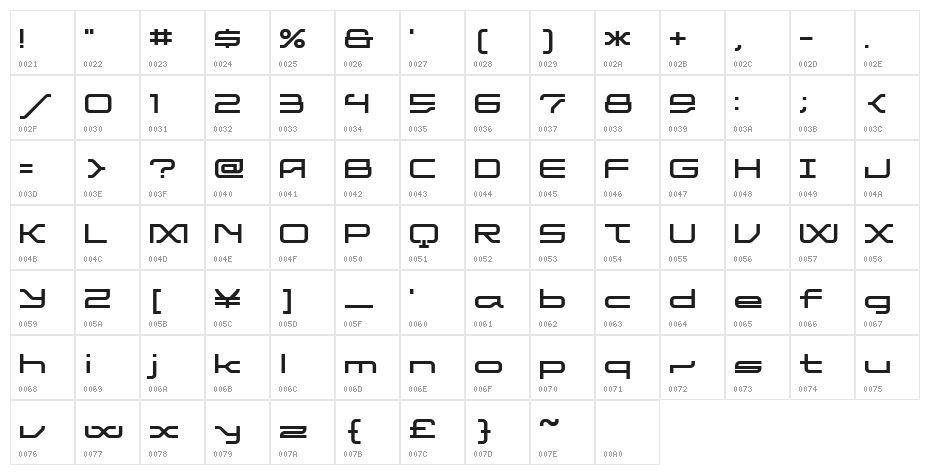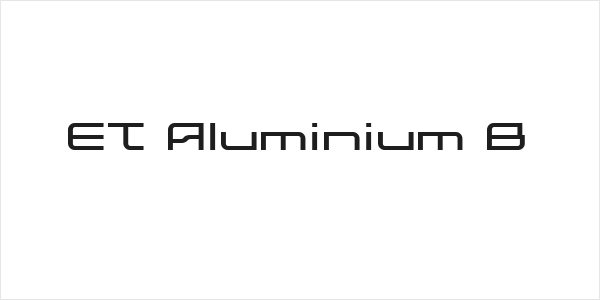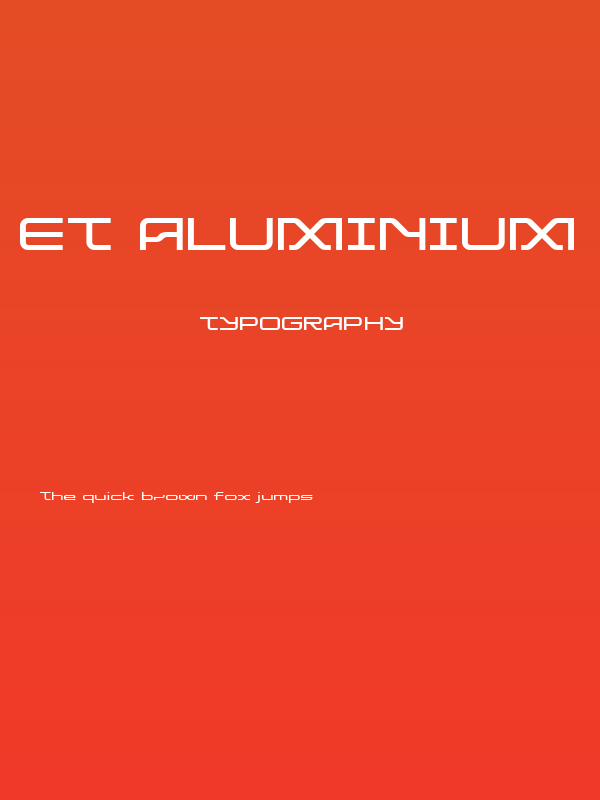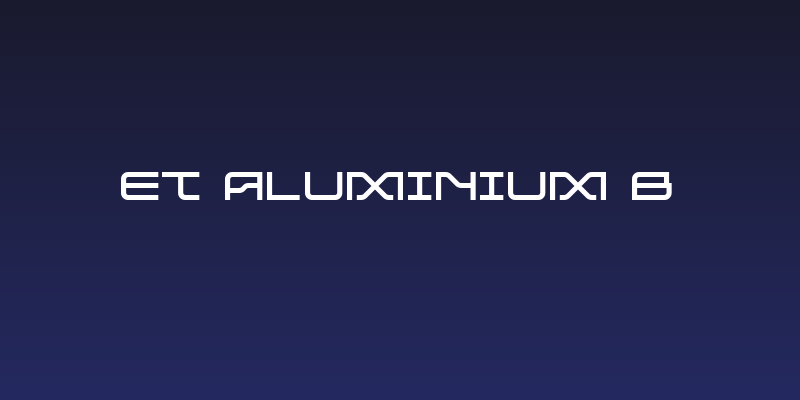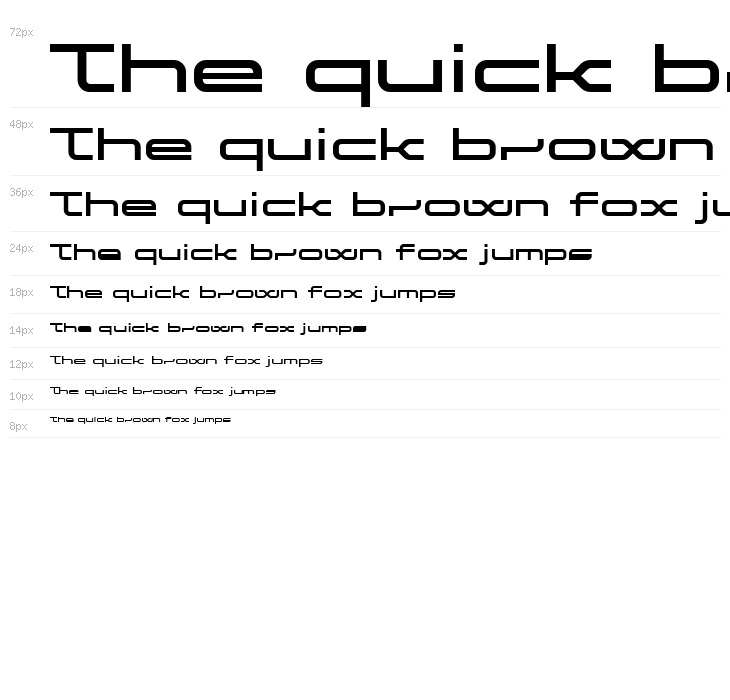
ET Aluminium B Font
ET Aluminium B Description
This font features a futuristic and geometric design with a strong emphasis on angular lines and sharp edges. The uppercase letters are bold and structured, giving a sense of modernity and precision. The lowercase letters maintain the same angular style, creating a cohesive look throughout the typeface. Numbers and special characters are designed with the same geometric precision, making them highly legible and visually striking. The overall appearance is sleek and contemporary, suitable for projects that require a modern and technical aesthetic.
Proposed ProjectsIdeal for technology branding, sci-fi movie posters, video game titles, and modern architectural designs.